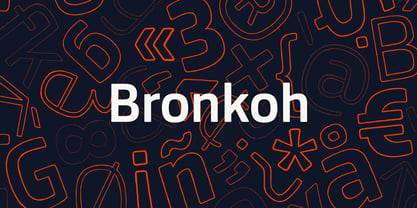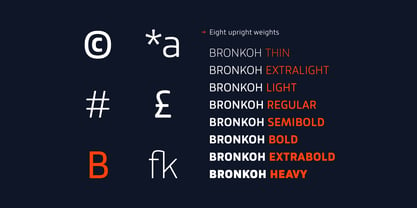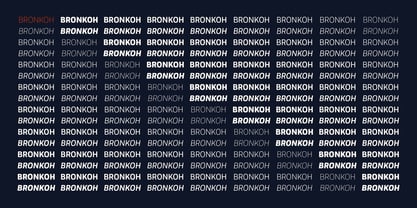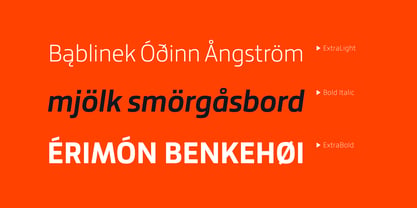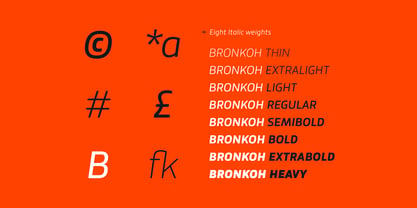
Bronkoh
by Brink
About Bronkoh Font Family
Bronkoh: A Subtly Softened Sans. Bronkoh aims to give a friendly face and soft touch to type both on screen and in print. Humanist forms and generous apertures make this a sturdy and legible face while its softened curves and terminals give it an approachable and welcoming spirit. The large character set and extensive latin language support make Bronkoh a highly functional font; This in conjunction with eight weights from thin to heavy, and matching italics add to its versatility.
Designers: Andrew Lethbridge
Publisher: Brink
Foundry: Brink
Design Owner: Brink
About Brink